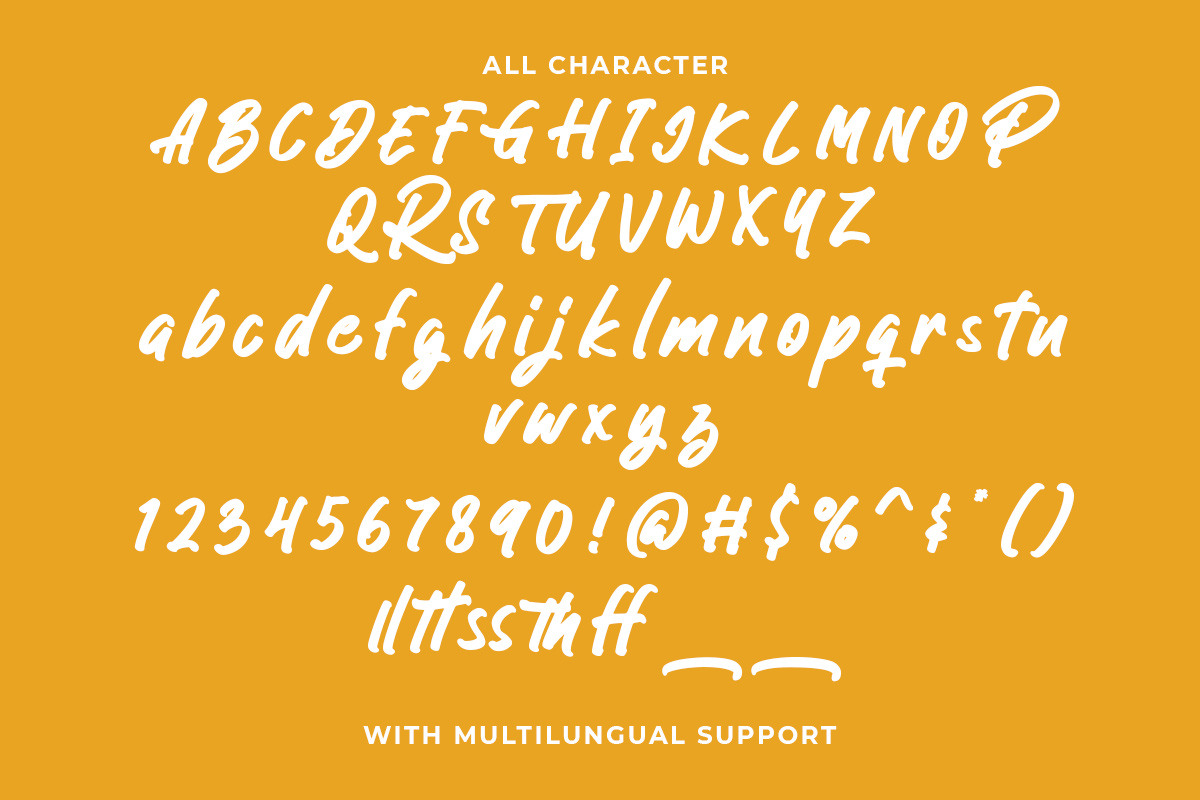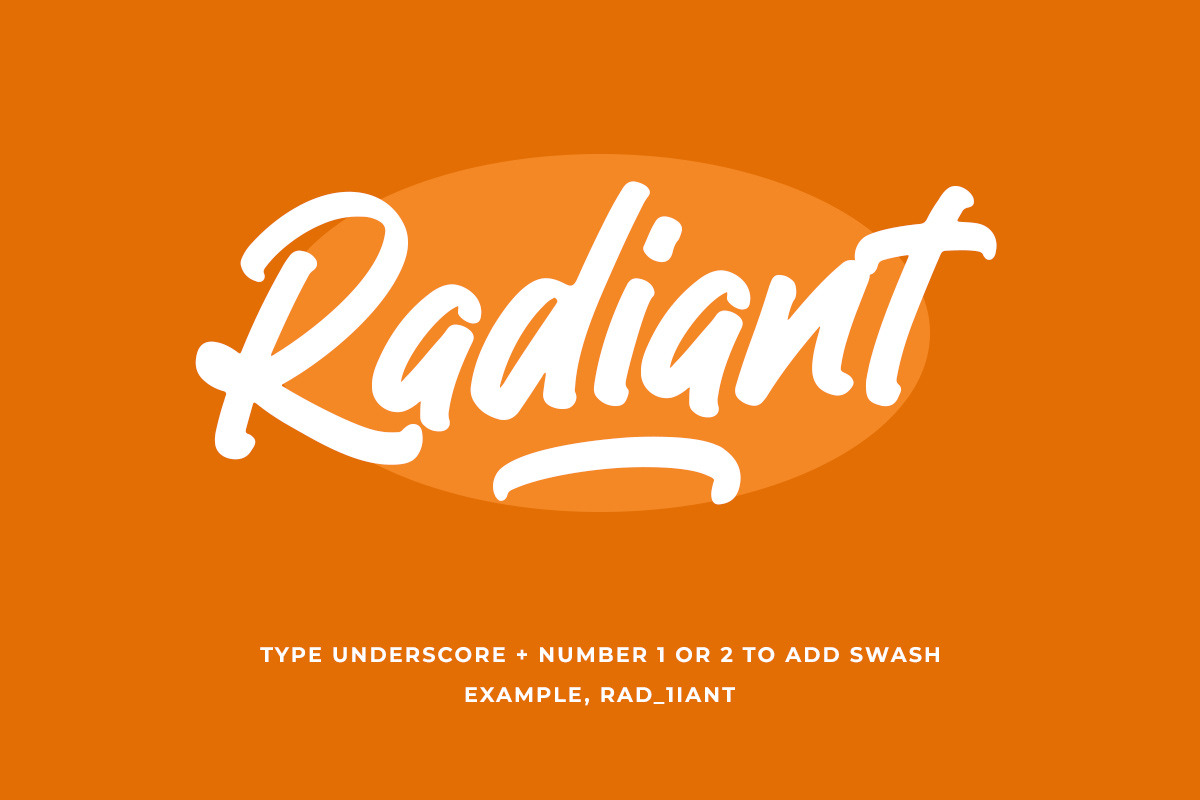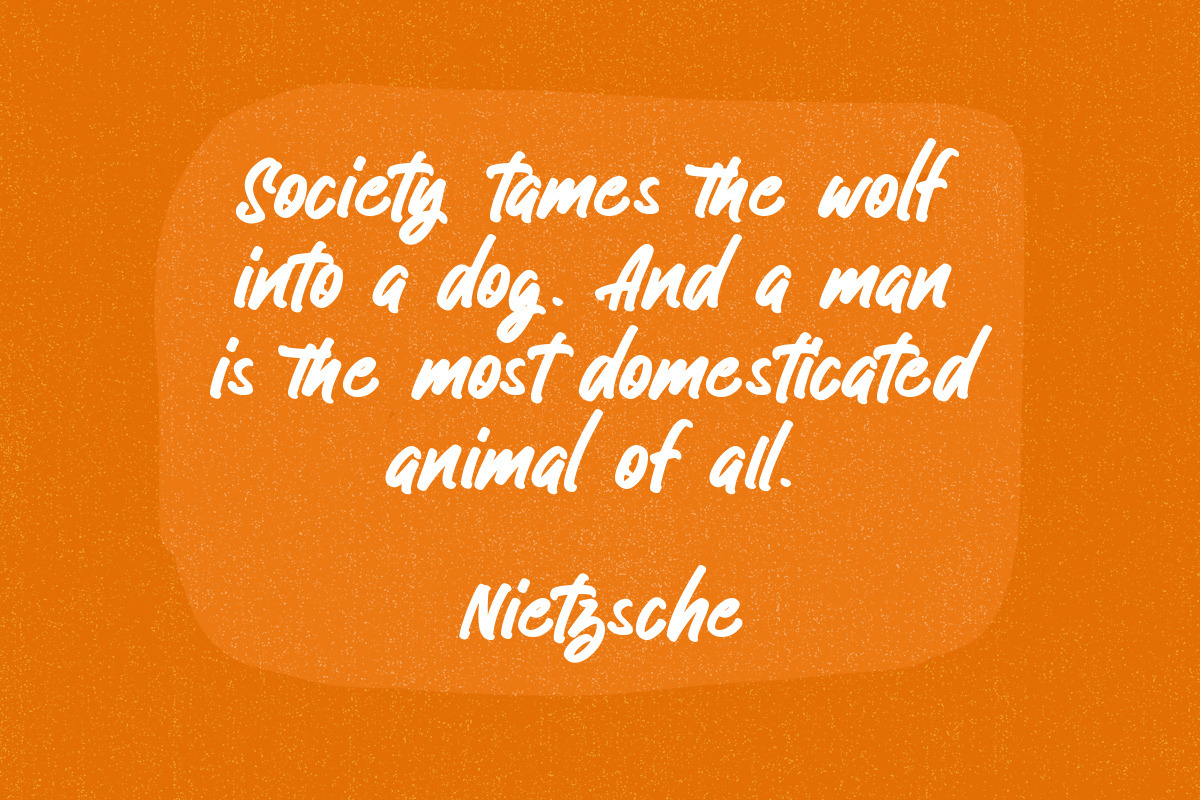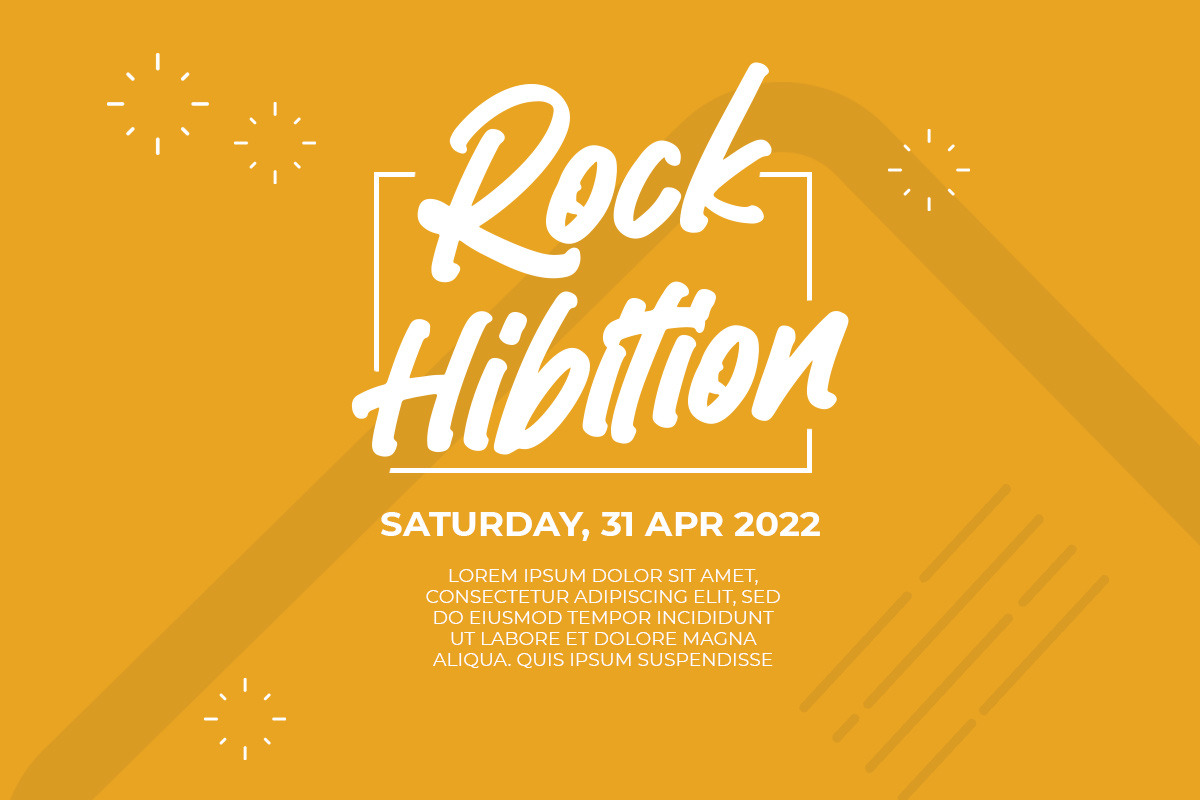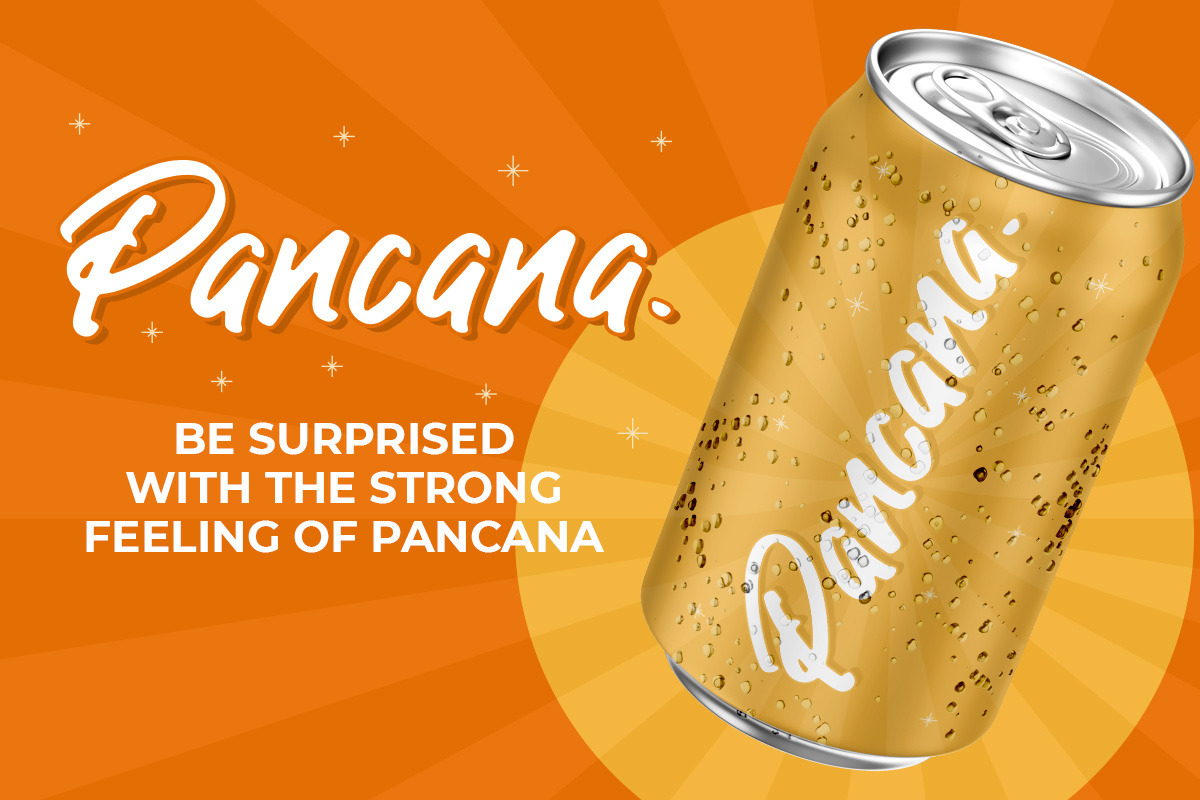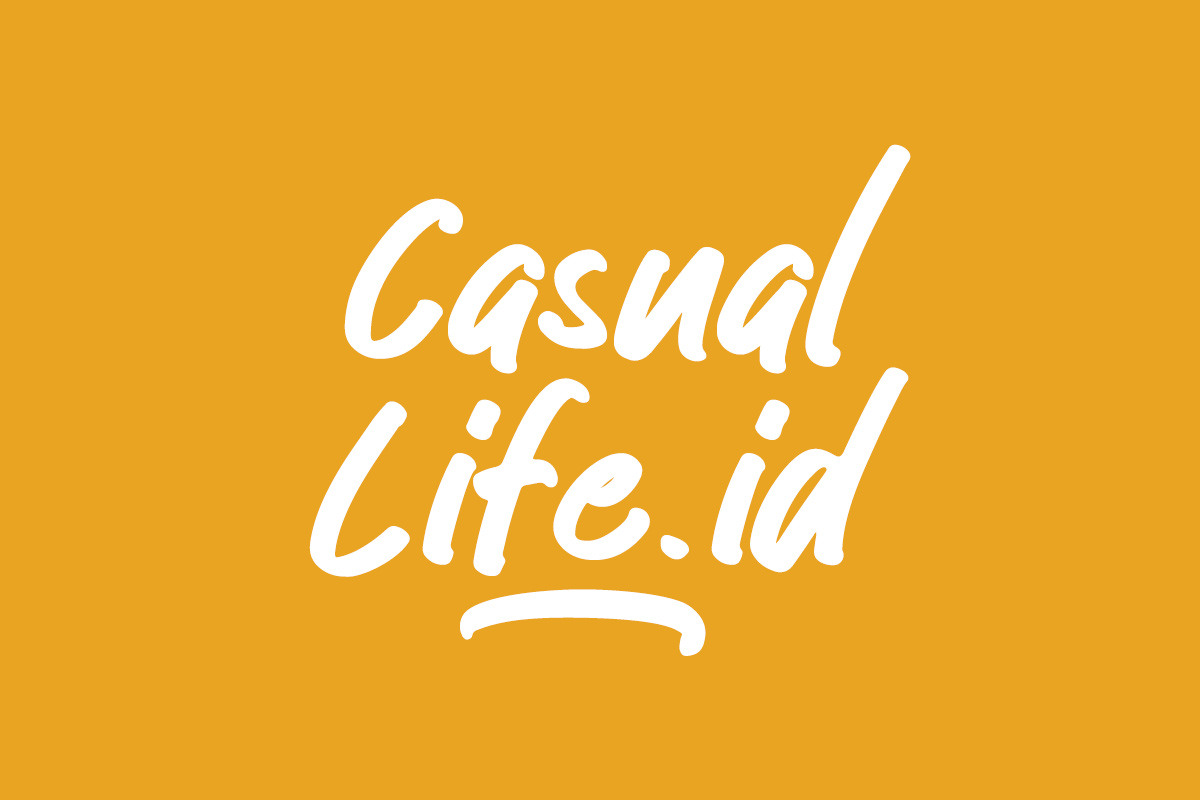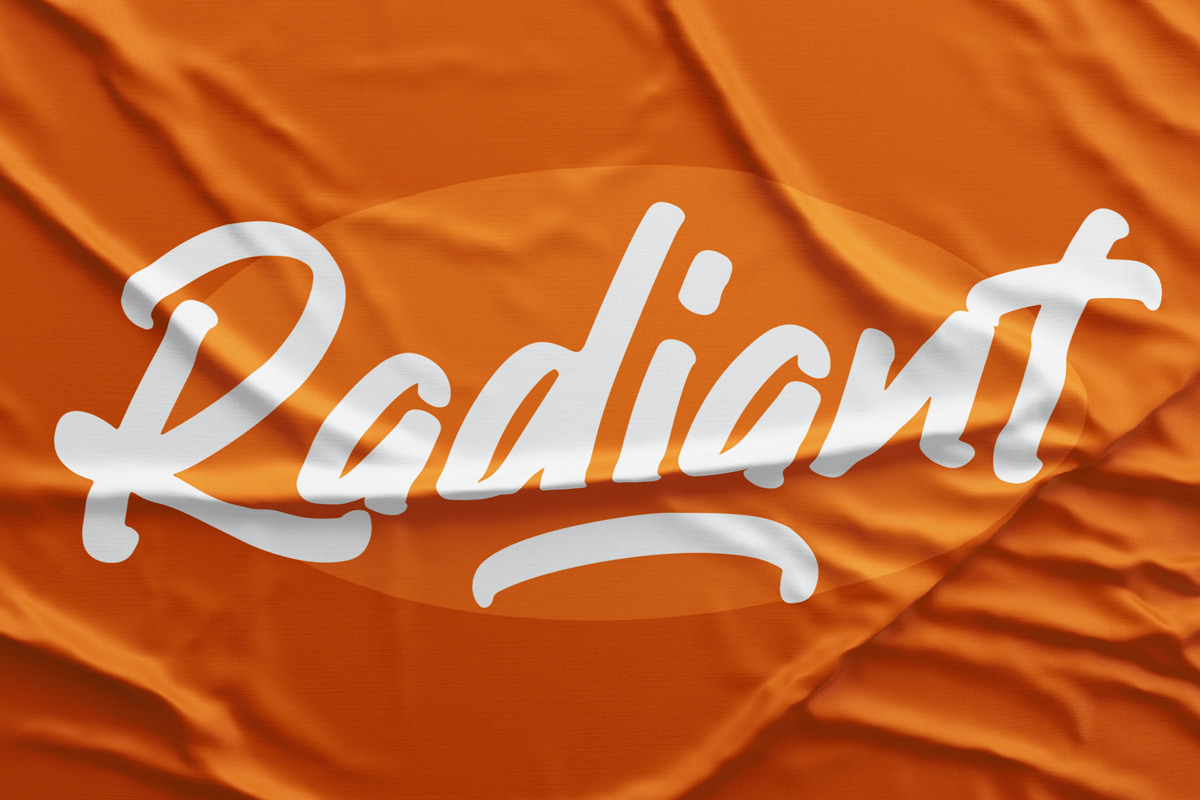
Ballistic - Handwritten Brush
Introducing, Ballistic handwritten brush. Ballistic is a font made using handwritten brush to approach the feeling of natural handwriting and have strong feeling because of its bold characteristics.
This font is perfect for branding, packaging, headline, title, logo, etc. Ballistic also comes with multilingual support.